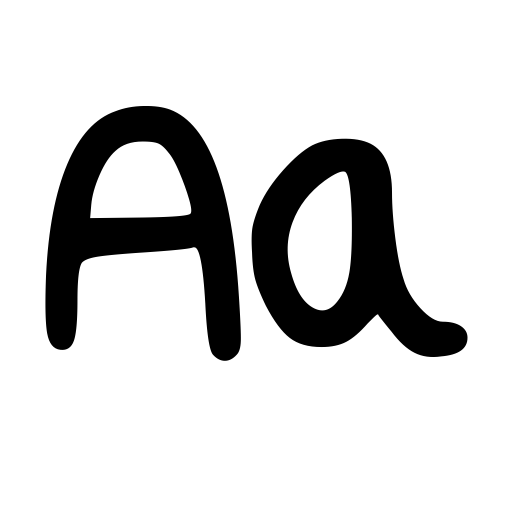
Azmoonfleet is a playful and informal handwritten sans serif font with a casual, friendly feel. Its slightly uneven strokes and quirky letterforms give it a warm, approachable personality, making it ideal for creative projects, children's designs, or brands seeking a personal touch. This font works best in headlines, logos, and packaging where a relaxed and charming vibe is desired.
azmoonfleet Font
About azmoonfleet Font